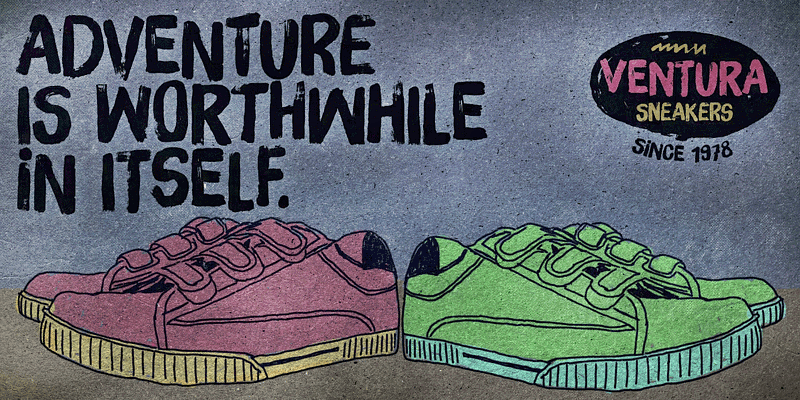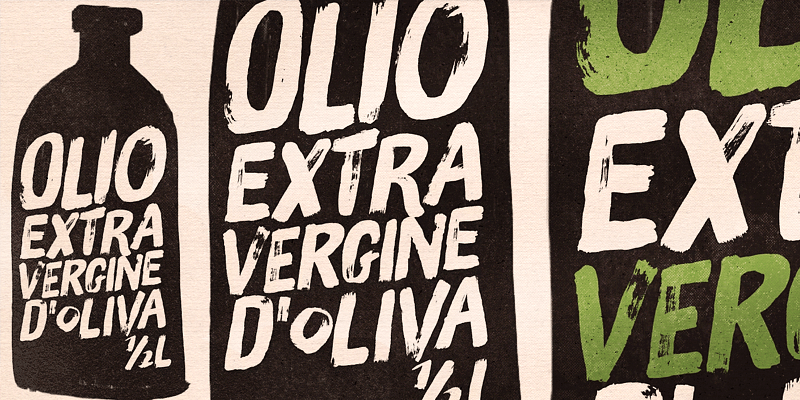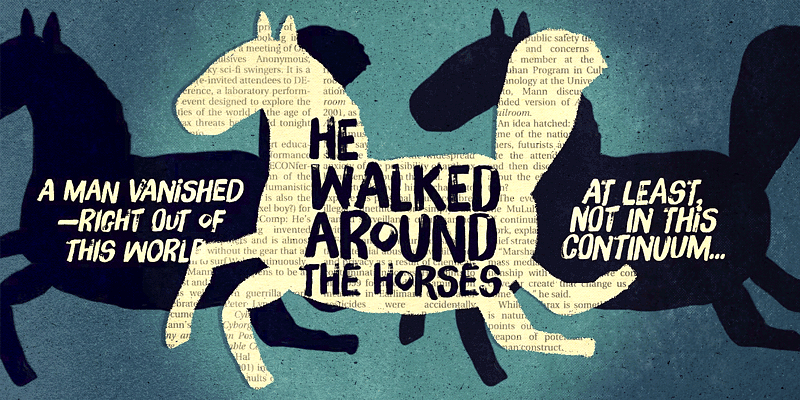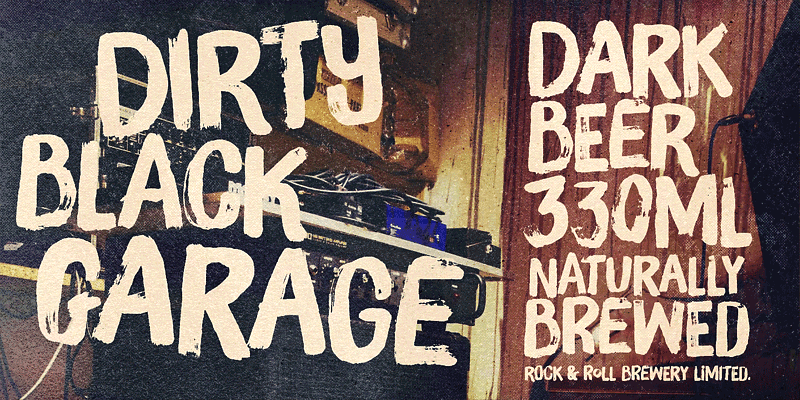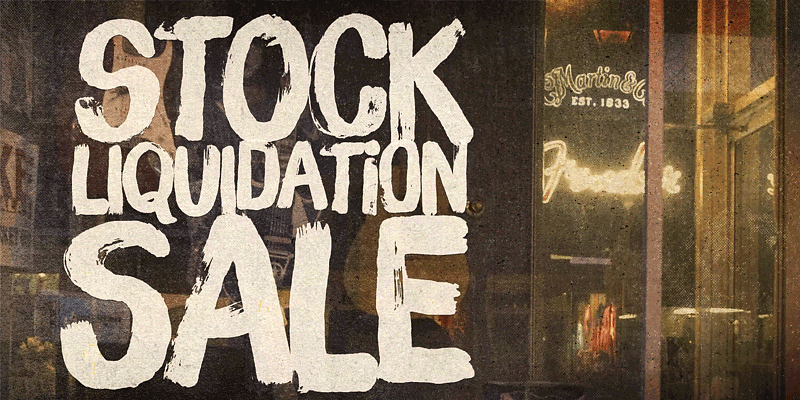
Brush Up is the cool handpainted typeface you are looking for. Swiftly painted on paper and carefully translated into a font, it brings 3 glyphs for each letter and 2 for each number, plus variations for some punctuation marks. The font is nicely programmed to cycle these alternate glyphs when Contextual Alternates engines of applications are turned on. Or, you can always pick up your choices manually through a glyphs palette. Either way it will certainly turn out refreshing! Surprisingly versatile, Brush Up is available in two cuts – upright and oblique – and will greatly fit tons of purposes. Is it a headline? A small chunk of text? Maybe not that small? Ok, just Brush’em all!